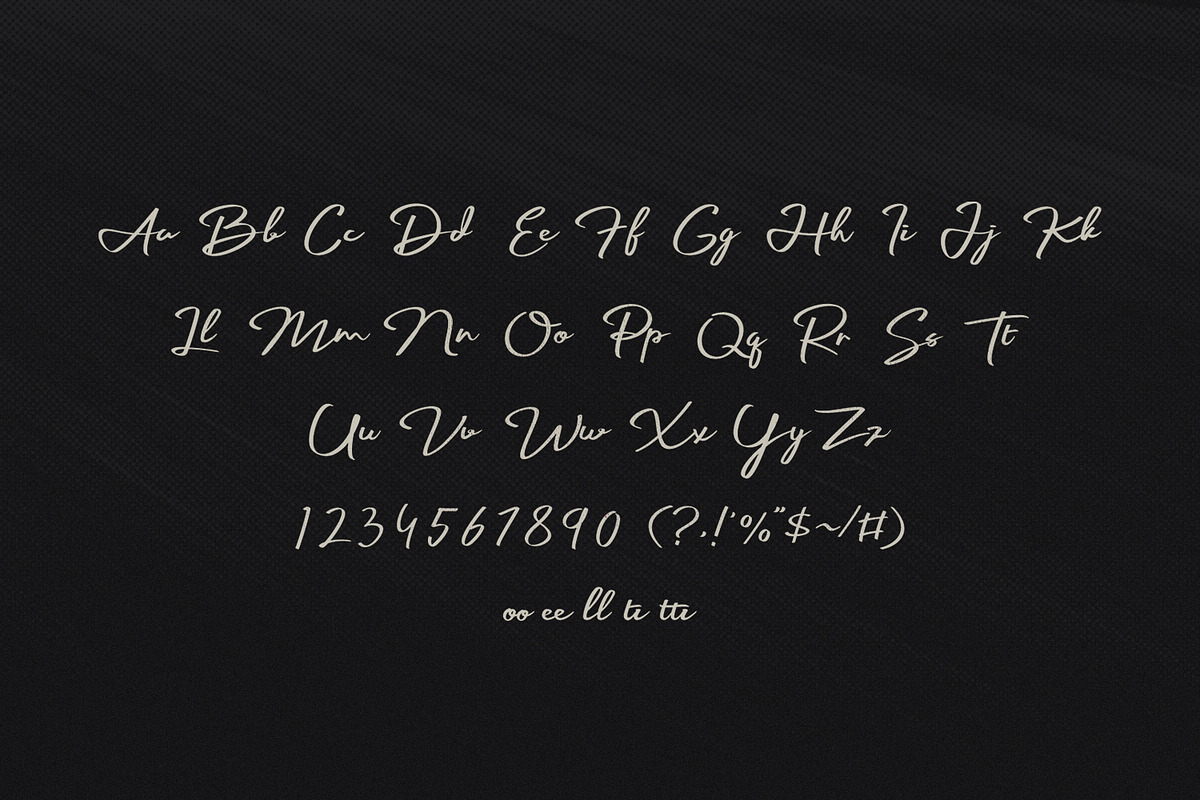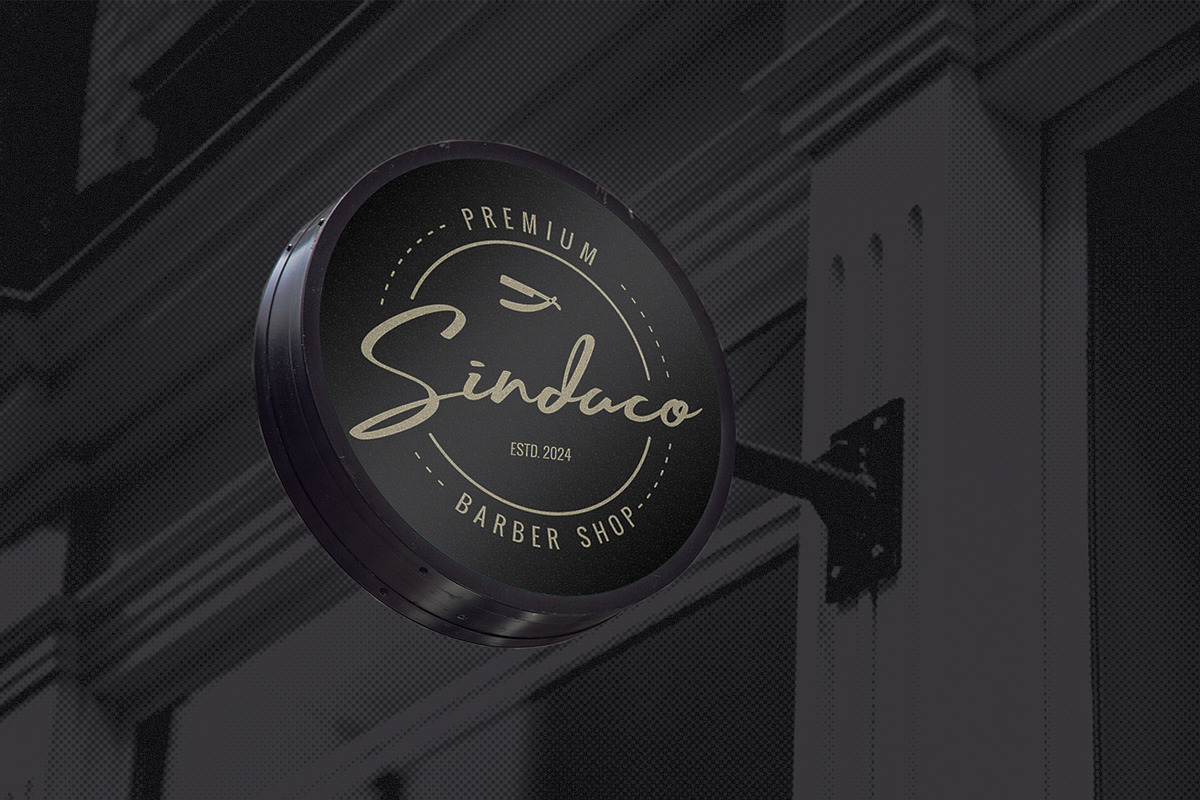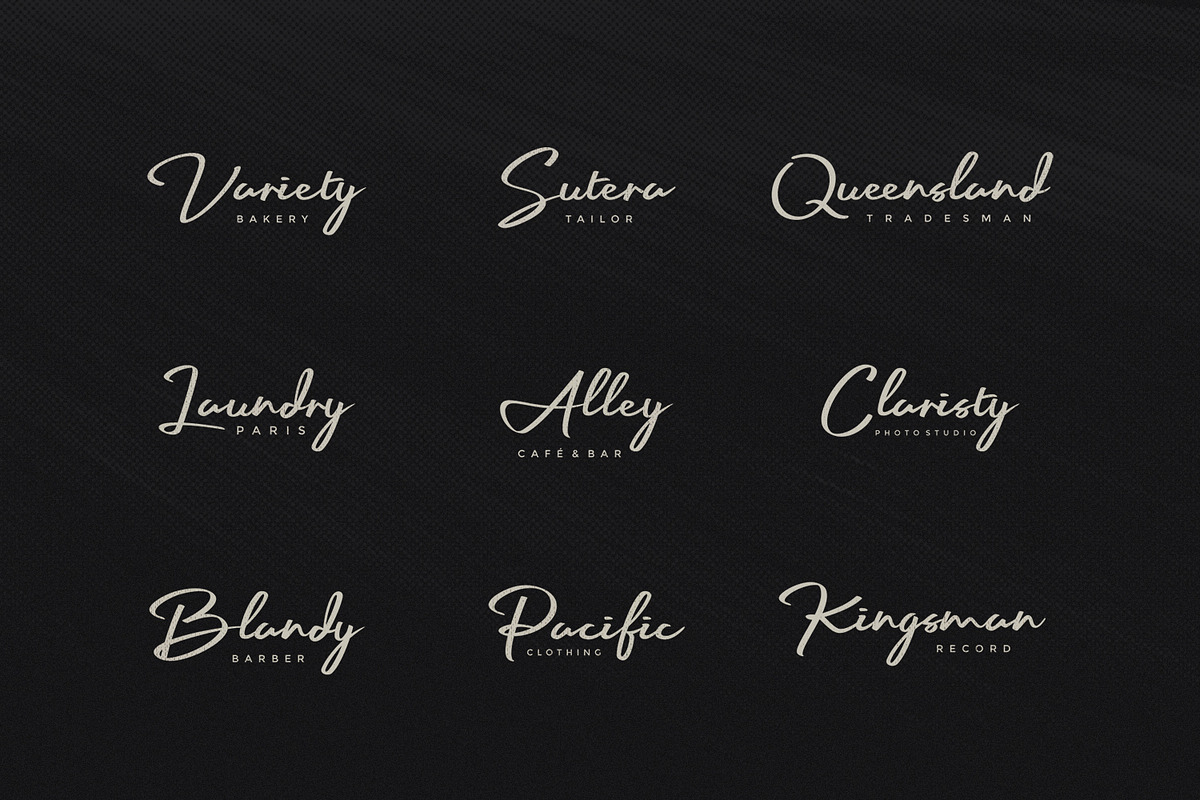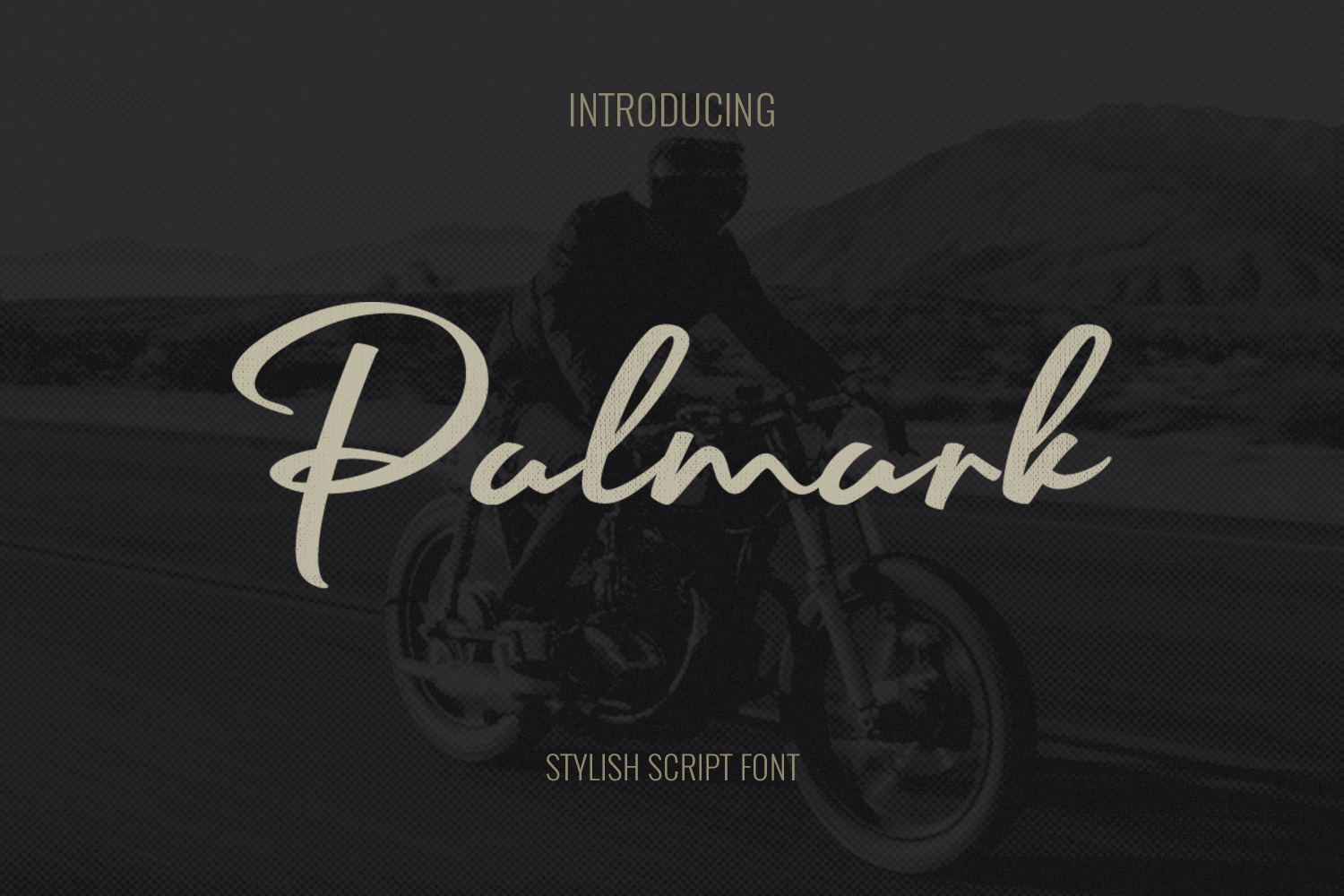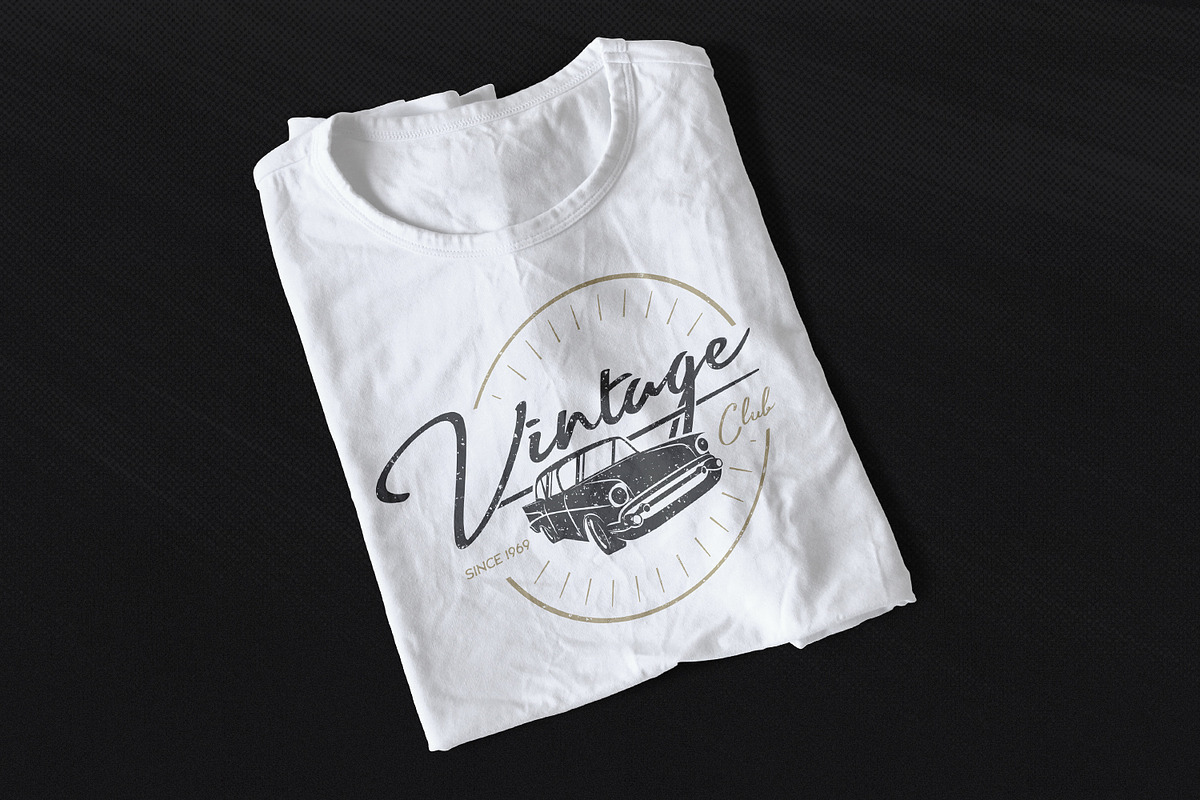
Palmark - Signature font
Palmark signature font is an stylish bold font with a touch of vintage perfect for a logo, display, book title or any variety design needs!